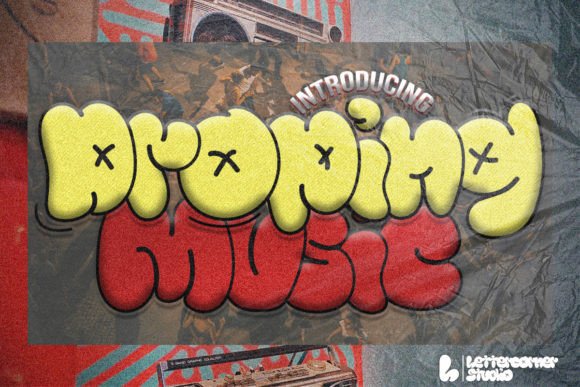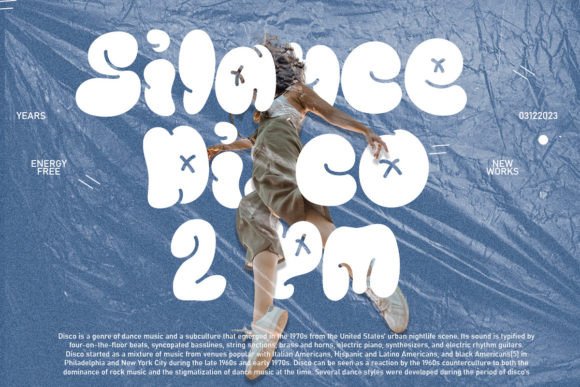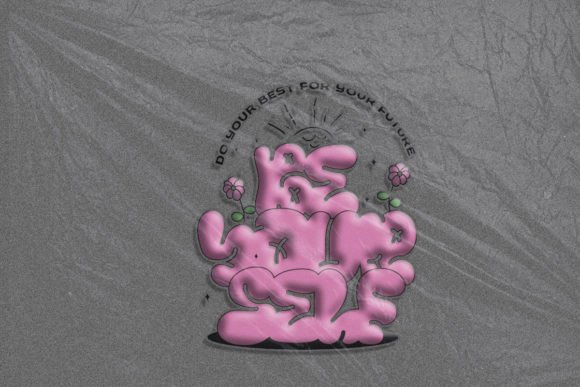
Introduction to Music Vibes Font
Music Vibes is inspired by the 70’s funk & soul vibes.
Is a distinctive and vibrant style of typography that emerged during the 1970s, primarily in the context of soul, funk, and disco One feature that makes this font style distinctive is the use of bold letters with thin lines to form letters.